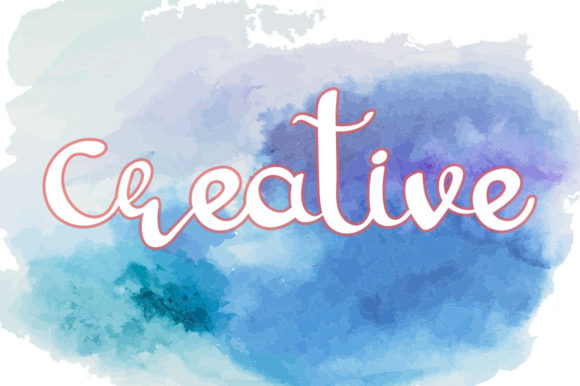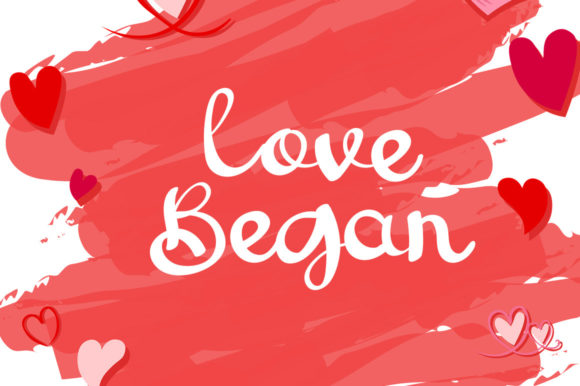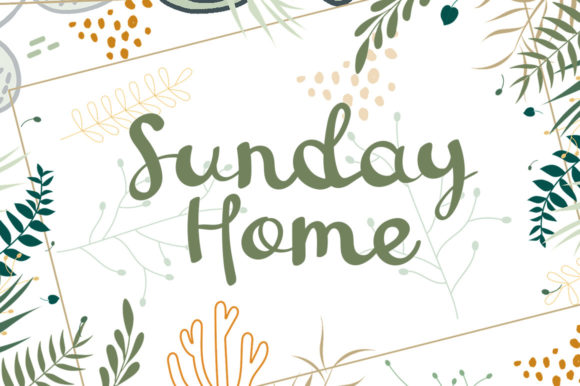
About Watercolor Font
Watercolor is a delicate and elegant handwritten font. Its distinct and well balanced letters make this font a masterpiece. Fall in love with its incredibly versatile style and use it to create spectacular designs!